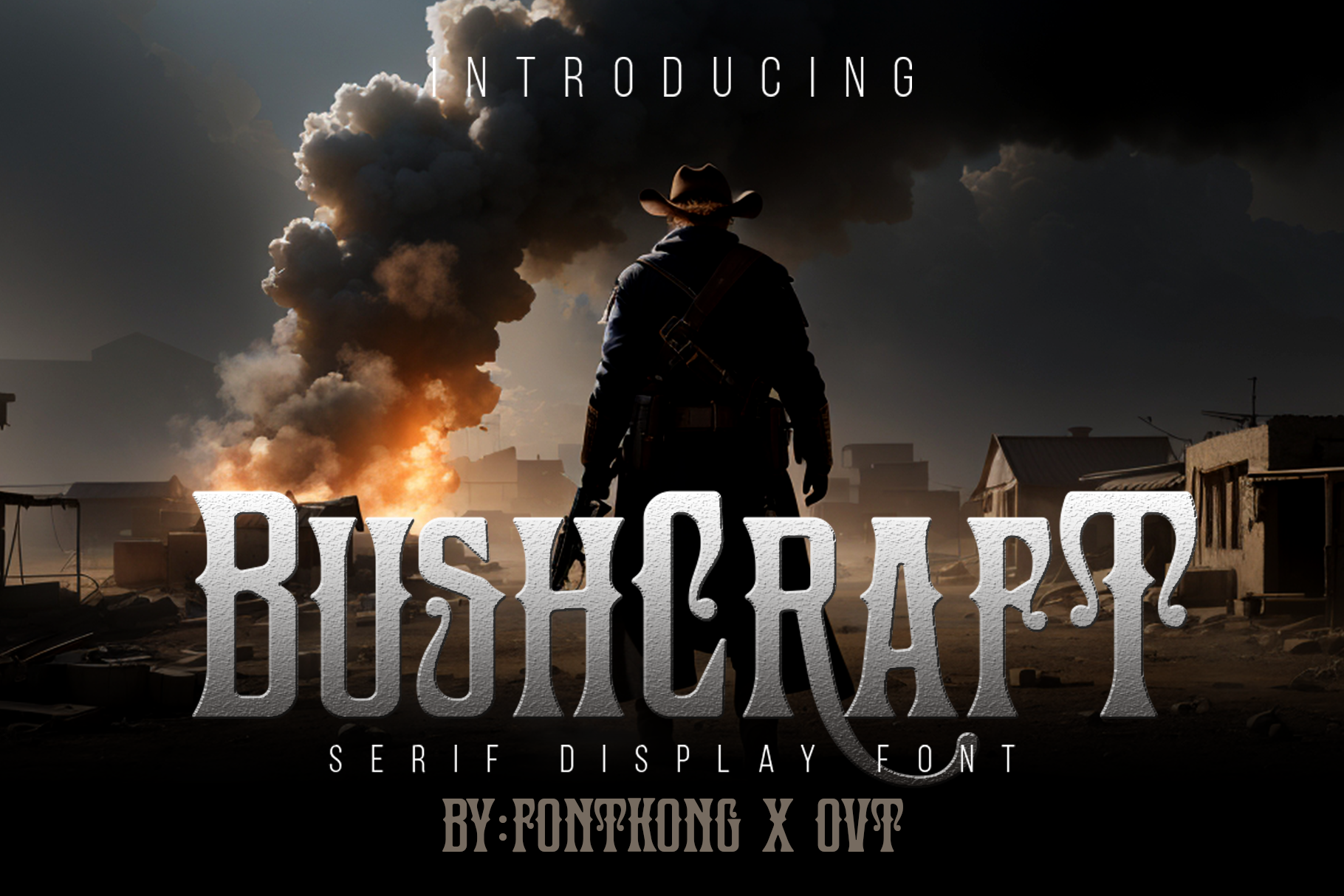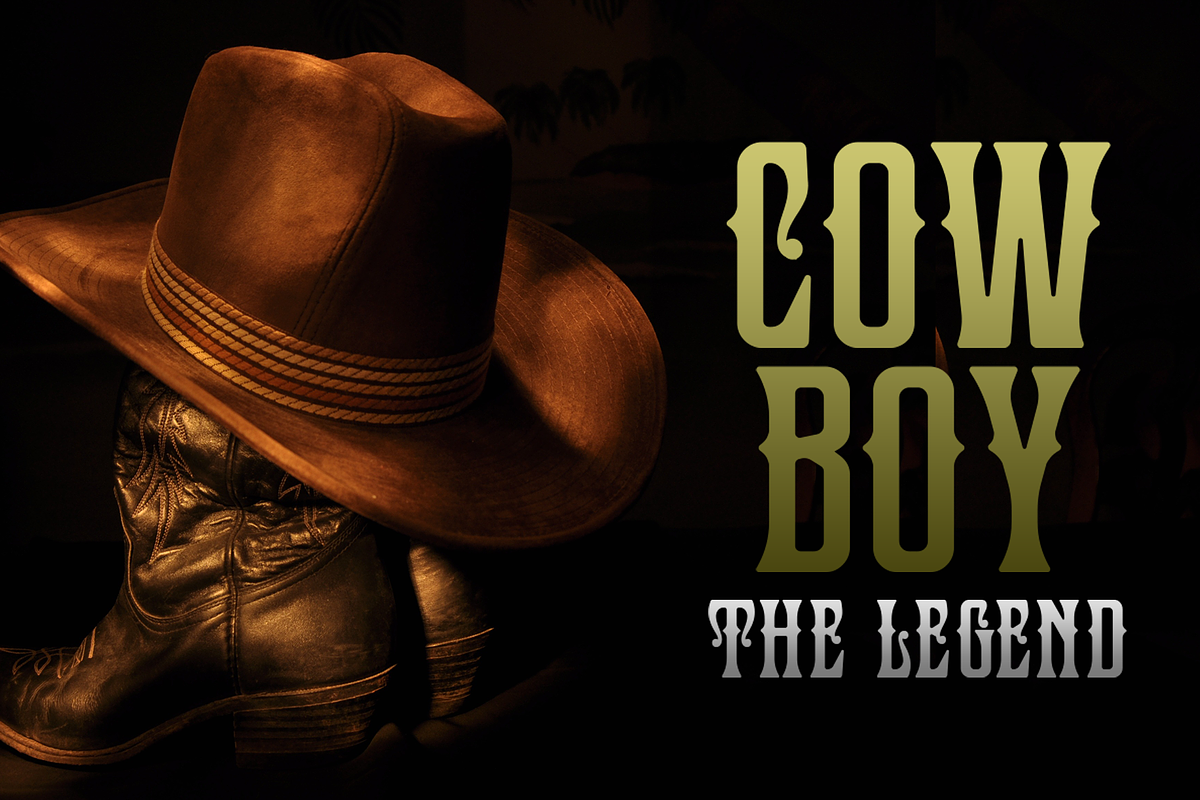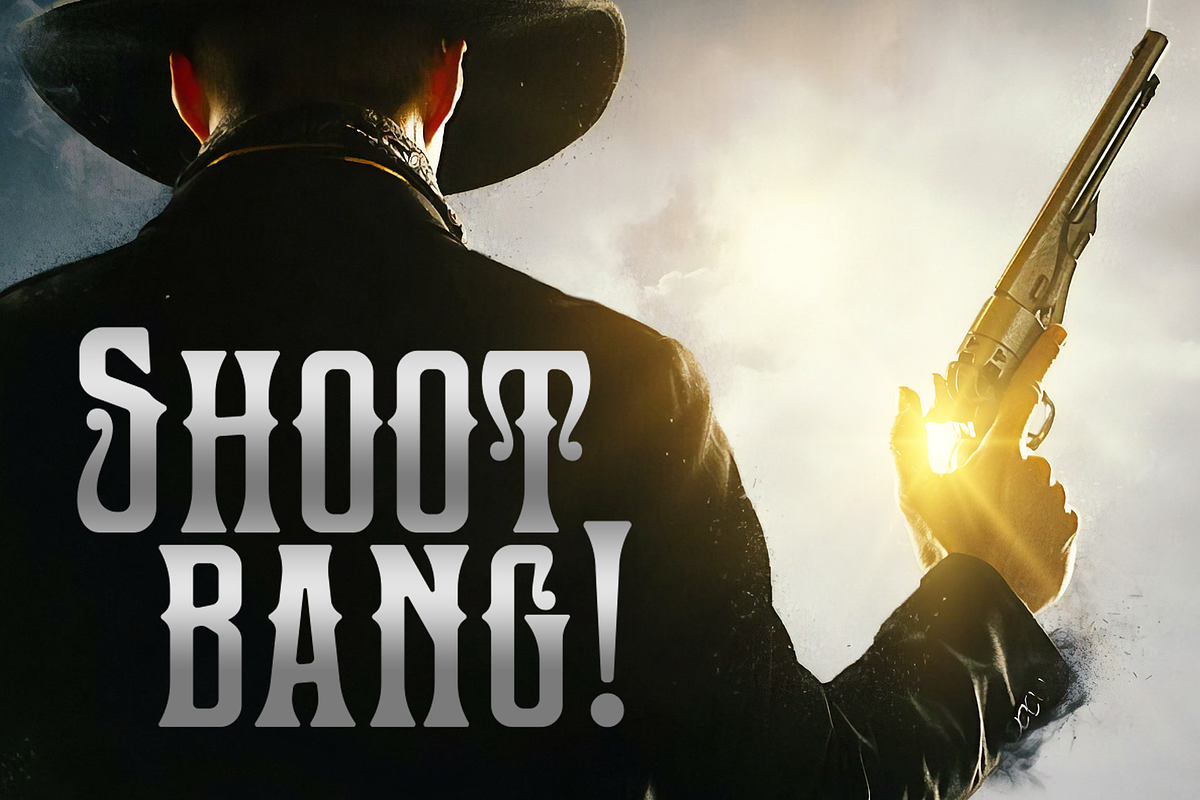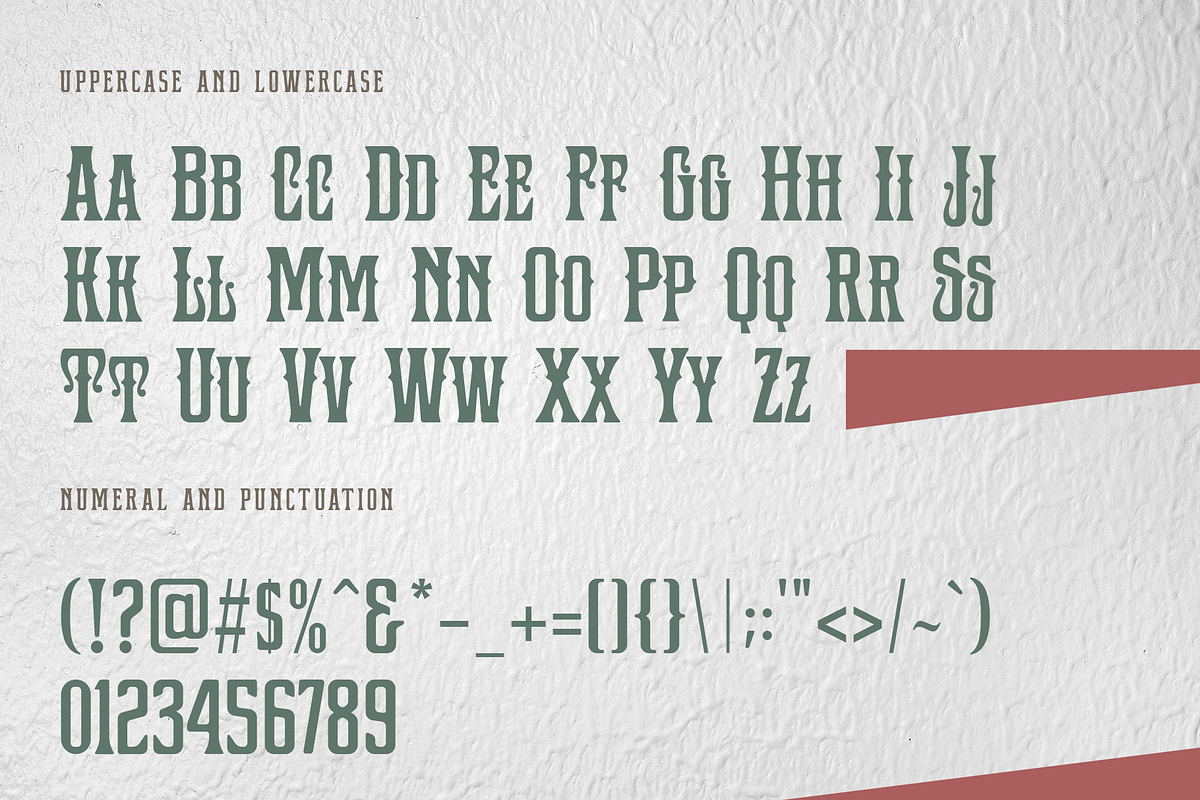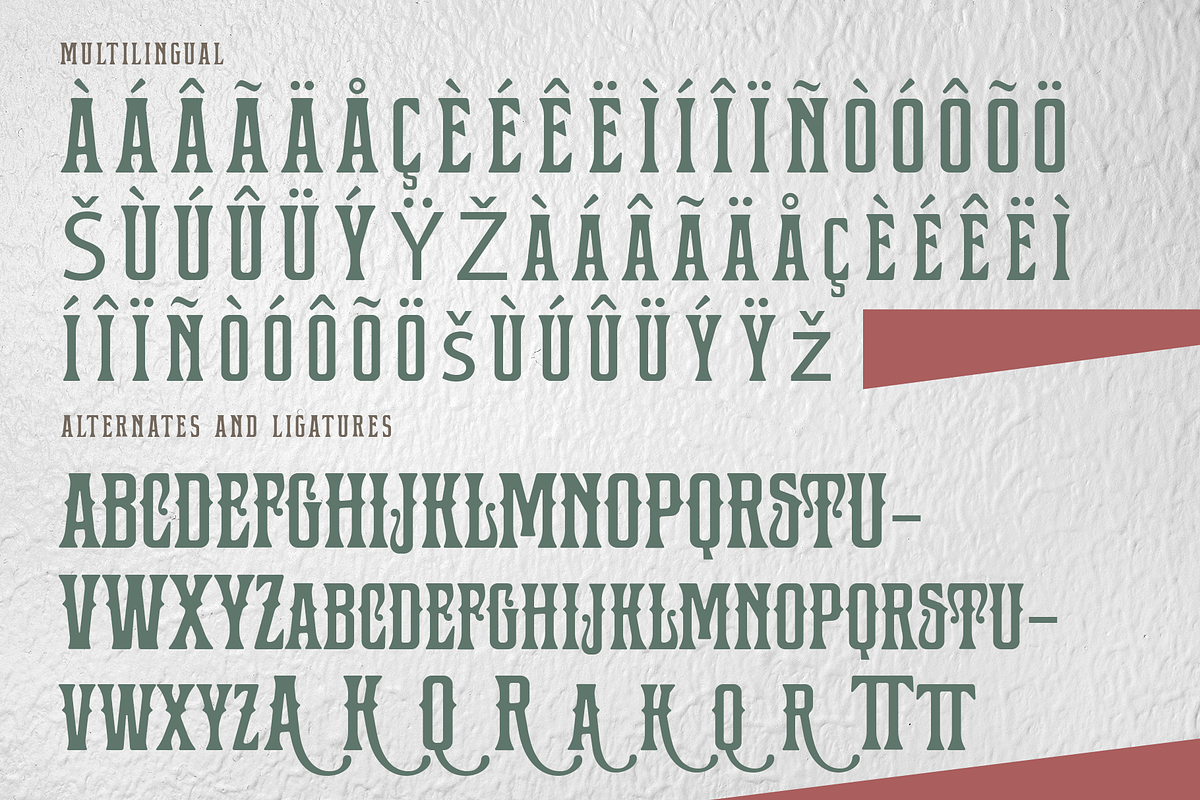
Bushcraft - A Serif Display Font
Bushcraft is a rugged and bold serif display font that brings an adventurous spirit to your design projects. With its strong letterforms and distinct serif features, Bushcraft is perfect for outdoor-themed designs, rustic branding, adventure magazines, and nature-inspired packaging. This font captures the essence of the wilderness, adding a sense of strength and authenticity to your work.
Crafted to evoke the rugged beauty of the great outdoors, Bushcraft features robust characters that ensure readability and impact. Its bold and commanding style makes it ideal for headlines, logos, and attention-grabbing text. The font's versatile design allows it to seamlessly integrate into both digital and print media, providing a consistent and powerful presence.
Embrace the call of the wild with Bushcraft, a font that combines the classic appeal of serif typography with a touch of adventure. Its unique style and adaptability make it a valuable addition to any designer's toolkit. Elevate your projects with Bushcraft and infuse them with the spirit of exploration and resilience.